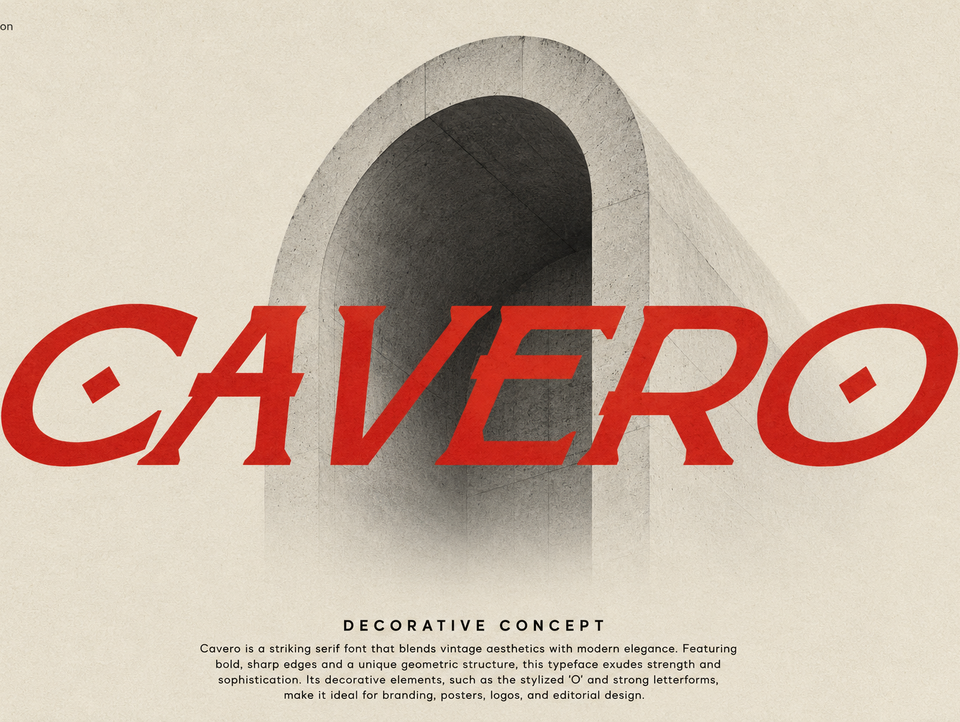
Cavero — High-Contrast Decorative Serif Font for Luxury Branding
Cavero is a striking decorative serif font that blends bold geometric construction with artistic elegance. Sharp edges, unique letterforms, and a high contrast serif structure create a sophisticated serif that still feels daring, and the overall retro-modern font character sits between vintage charm and contemporary fashion. Designed as a display serif font for high-impact typography, Cavero is a dependable choice for high-end branding, editorial design, posters, and logos, and a natural fit for luxury packaging and premium product stories. A bold display serif with a distinctive personality, it rewards close attention in every setting.
Cavero is a serif font with ligatures at its core. An extensive ligature set, including standard and discretionary ligatures, keeps letter pairs flowing naturally at large display sizes, and Access All Alternates support lets you reach carefully crafted alternate glyphs without leaving your design software. A distinctive O and creative letterforms give wordmarks a bespoke, made-to-order finish. The family also includes fractions, ordinals, and superiors for refined editorial details, all delivered as a fully modern OpenType font with tuned GPOS kerning for reliable behavior in supporting applications.
Cavero works as a fashion editorial font in runway campaigns and lookbooks, a modern magazine font for editorial spreads and covers, and a versatile poster font for events, concerts, and exhibitions. It is a dependable branding font for identity systems, a luxury packaging font for premium boutique products, and a clean logo font for wordmarks and monograms. This elegant editorial serif font also shines as an editorial font for headlines, pull quotes, and hero text. High-impact layouts, creative compositions, and statement pieces all benefit from its bold, expressive forms.